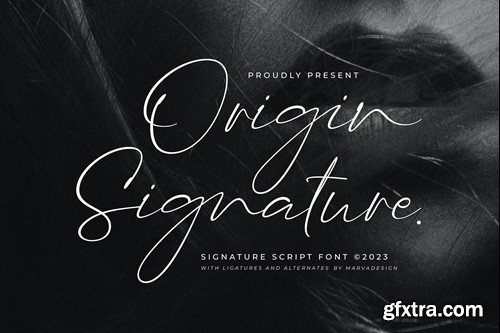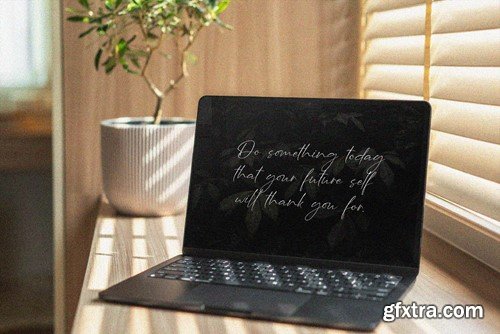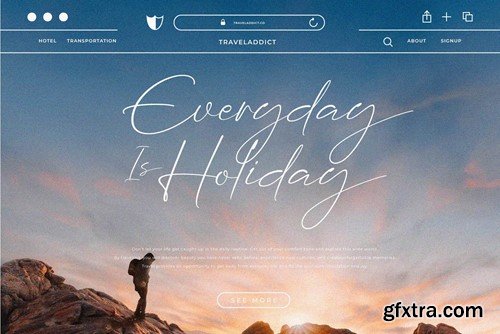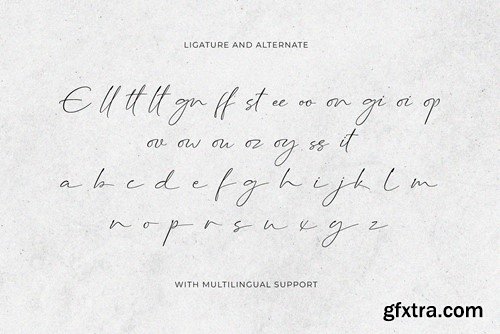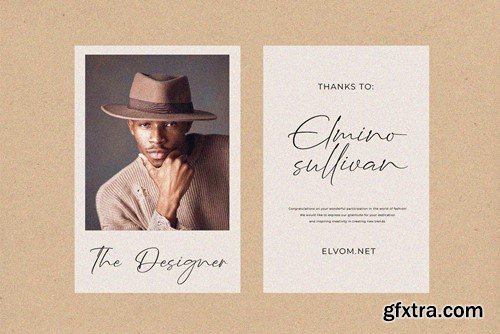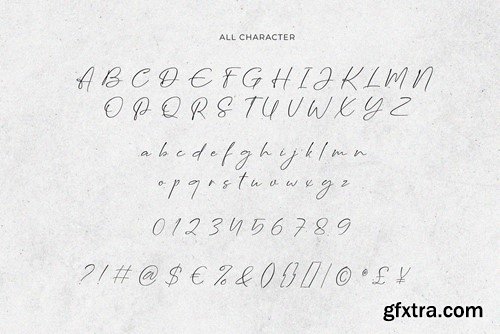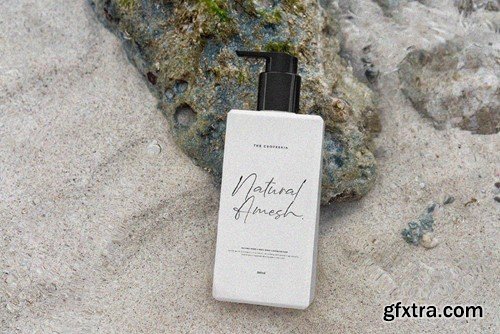
Origin Signature - Script Font
Introducing our new product Origin Signature Font - Script Font Font authentic display font. The font is suitable for any branding project like logo, Template Design, Product and many more. outstanding in a wide range of contexts. availlable